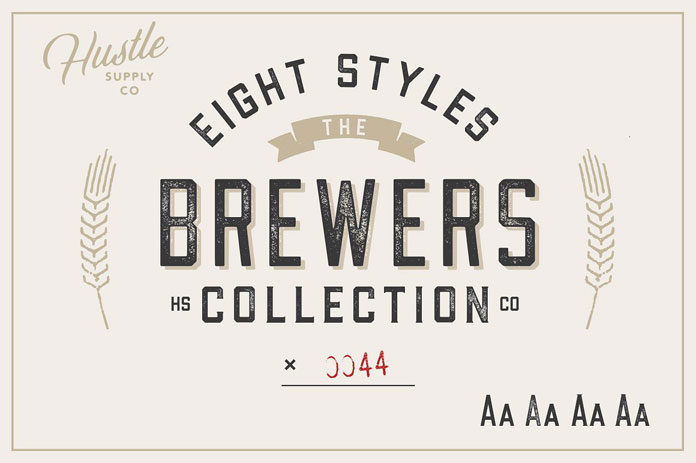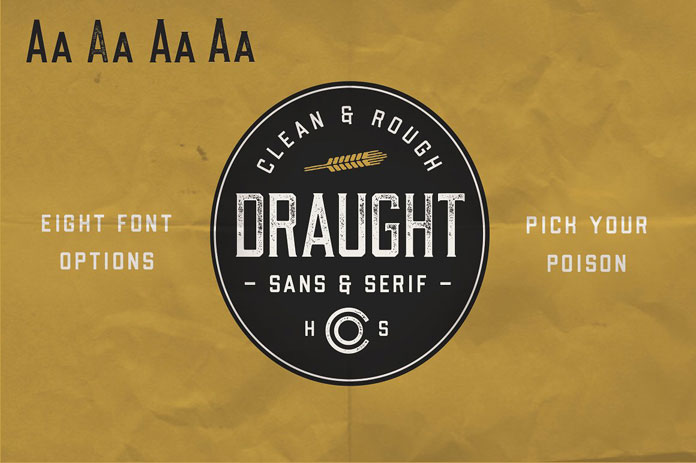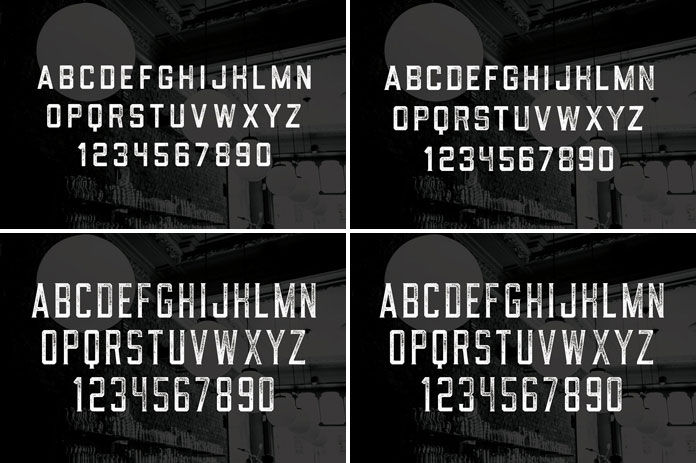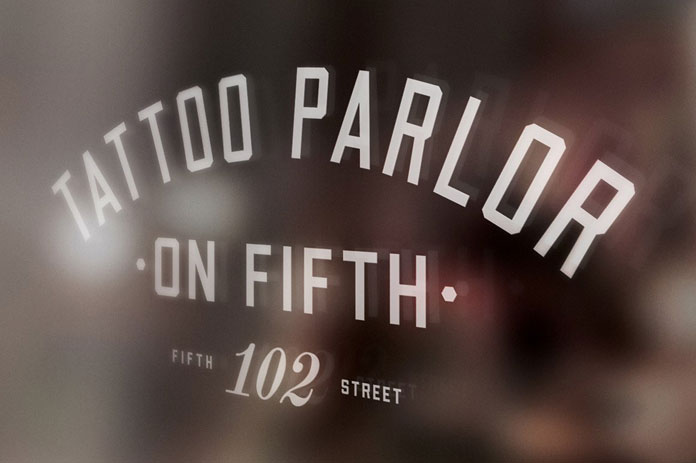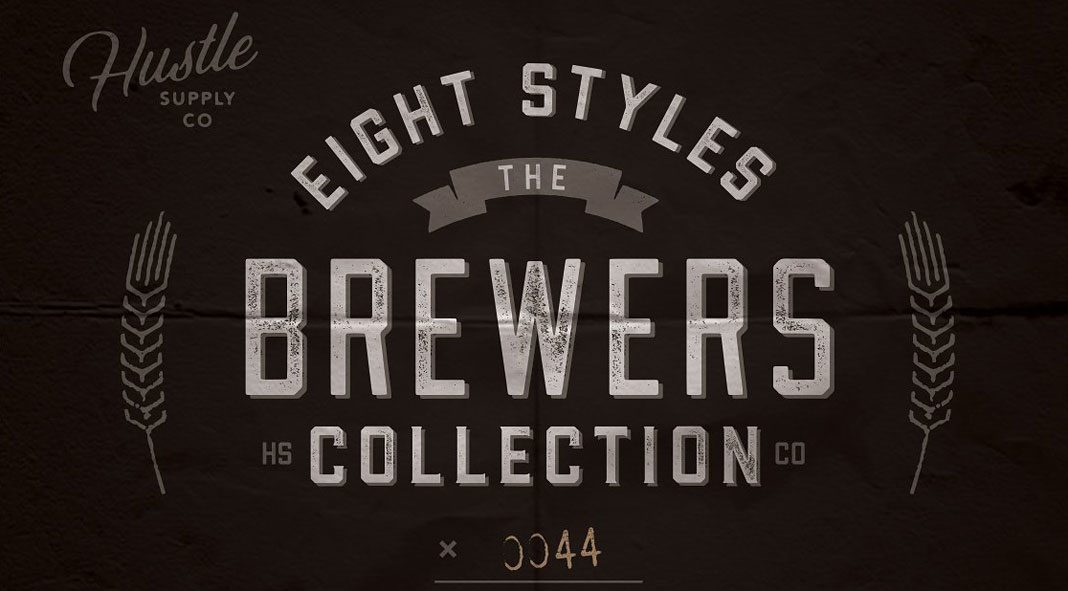
The Brewers font collection – 8 vintage-inspired display fonts designed by Jeremy Vessey of Hustle Supply Co.
Type designer Jeremy Vessey of Hustle Supply Co. has recently completed the Brewers font collection. Designed with only all-caps letters, this type of family was made for display use. The font inside the collection is called Draught. It comes in 8 styles consisting of Serif, Sans Serif, Serif Textured, Serif Condensed, Sans Serif Textured, Sans Serif Condensed, Serif Condensed Textured, and Sans Serif Condensed Textured. The textured styles were designed to add a more authentic vintage look and feel to the whole collection. Please read more below or click on the following link to purchase the collection.
Based on Western characters, the set includes 8 OTF files consisting of 4 clean styles and 4 textured counterparts. Equipped with only all-caps letters, the fonts are well suited for stylish packaging and branding projects as well as different kinds of display use. Whether typographic designs for restaurants, brewing companies, labeling, menus, signage, websites, apparel, and coffee shops, the textured versions add a nice letterpress effect to your creations. For additional information on all options, just follow the link below.